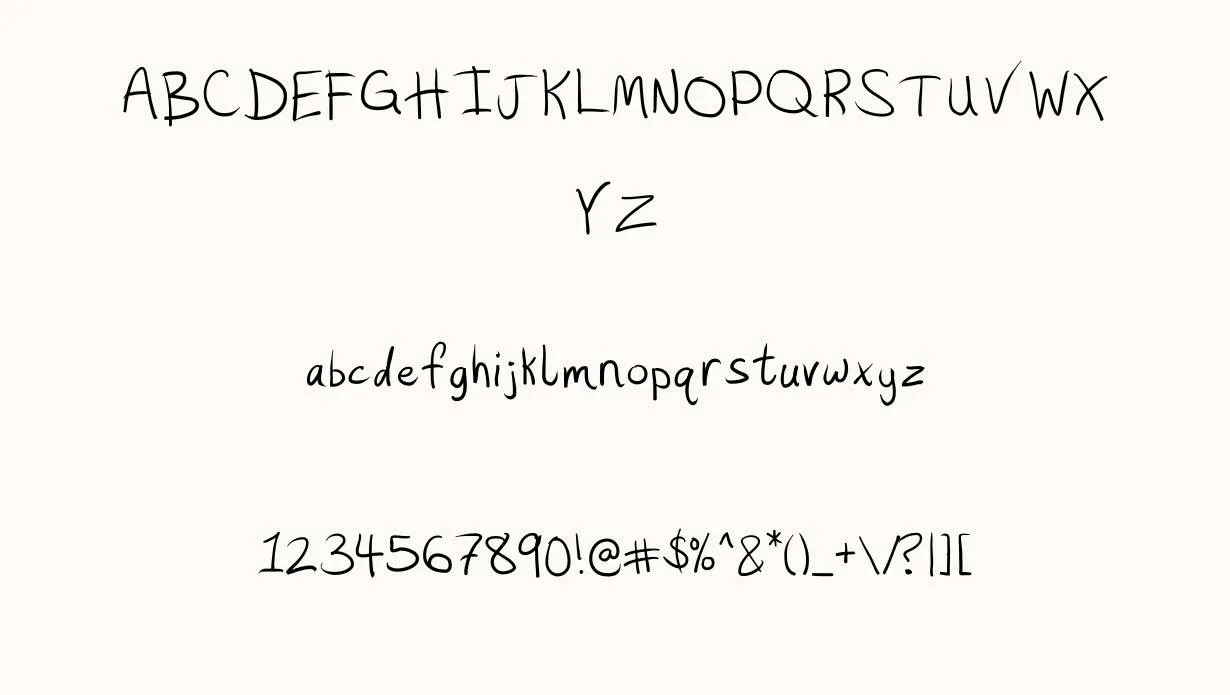
The Hashtag Font is the digital voice of the internet, perfect for social media graphics or any project embracing the hashtag trend. Its sleek characters bring a modern touch to your designs, capturing the essence of contemporary communication.
| Name | Hashtag Font |
| Designer | TitanVex |